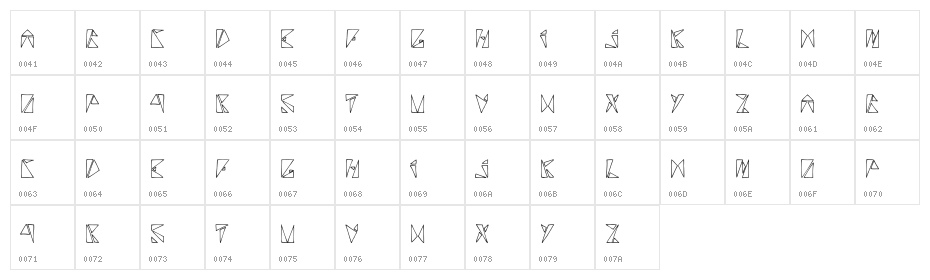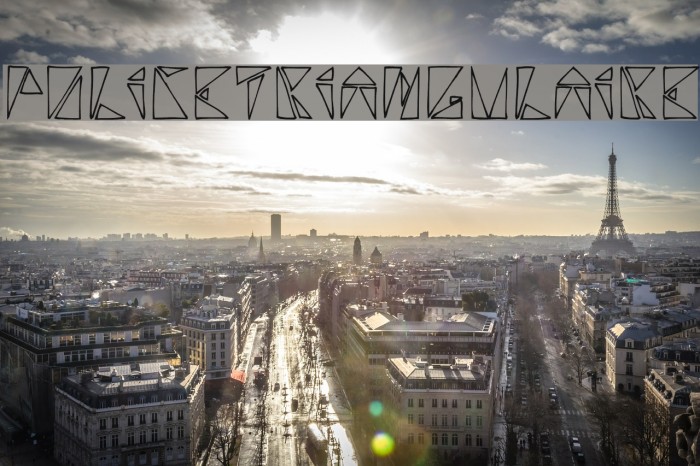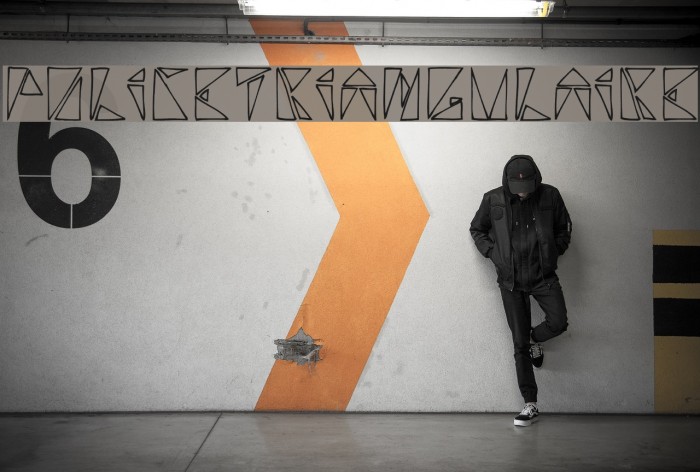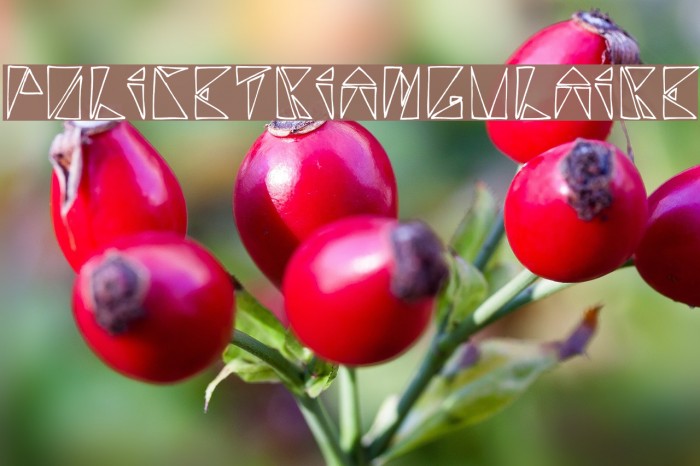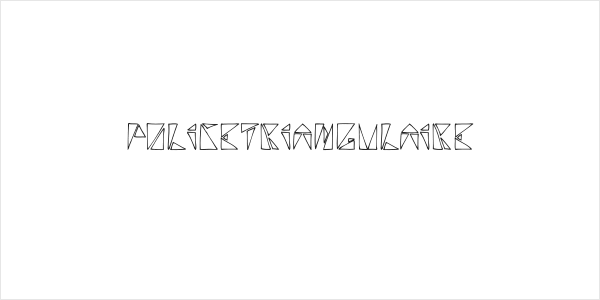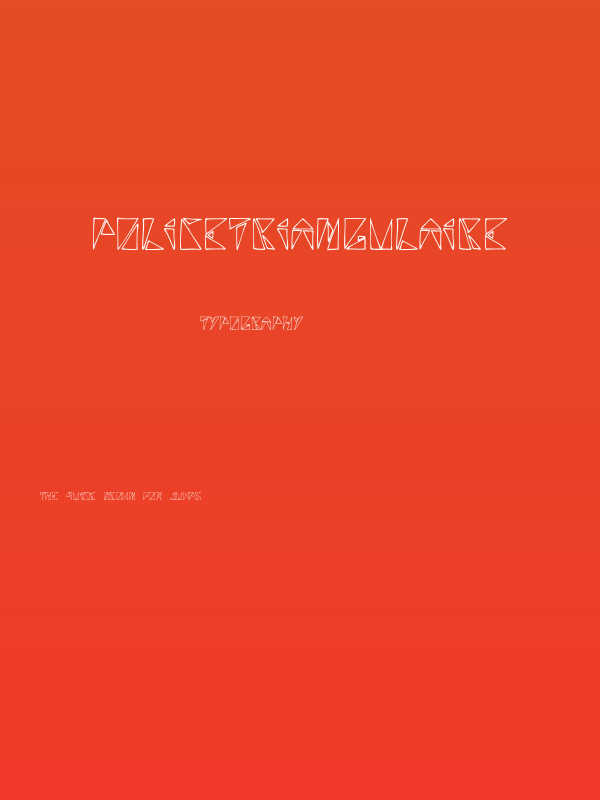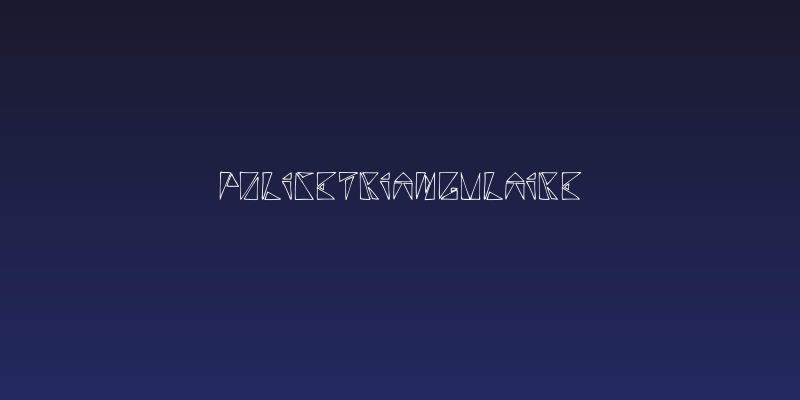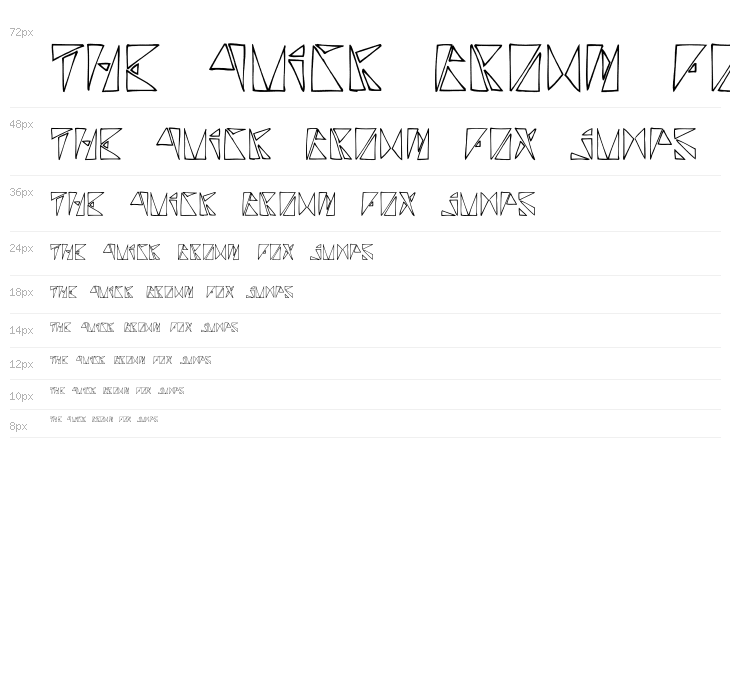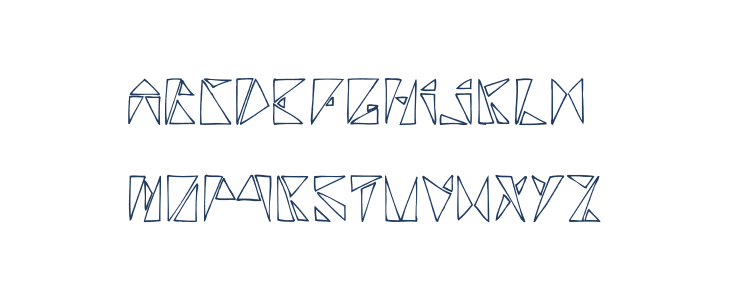
policetriangulaire Font
policetriangulaire Description
This font features a unique and artistic design, characterized by its geometric, triangular shapes that form each letter. The angular lines and sharp edges give it a distinct, modern look that stands out. Each character is crafted with a series of interconnected triangles, creating a sense of movement and dynamism. The font maintains a consistent style across both uppercase and lowercase letters, as well as numbers and special characters. Its abstract and decorative nature makes it ideal for creative projects that require a bold and unconventional typeface.